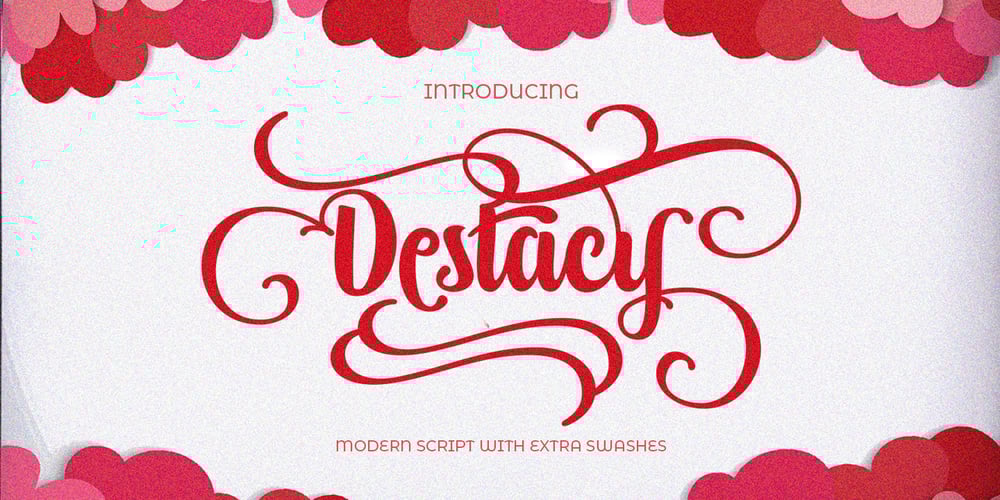
Destacy
Destacy font
Destacy Font Family was designed by Cut Nurfajarlia and published by Alandya TypeFoundry. Destacy contains 2 styles and family package options. Destacy script is a magical script font, carefully created with a touch of elegance. This is a beautiful combination of timeless elegance and authentic calligraphy. It features an incredibly classic style, while still keeping a friendly feel. Destacy script is the perfect font for making original and outstanding designs.This script has multilingual support and many alternative lowercase characters, as well as many additional swashes options, allowing you to make your design truly unique.The Destacy script is a beautiful, classic calligraphic font which will add a sweet, elegant, and perfect feel to your design. It’s perfect for logo projects, wedding invitation cards, branding, home designs, product packaging, and every other design that needs an elegant typeface.